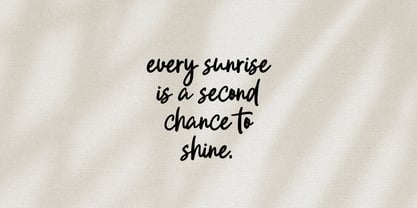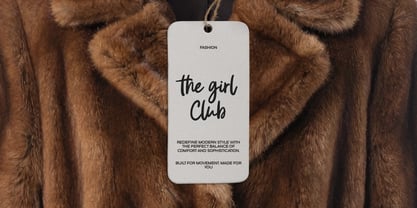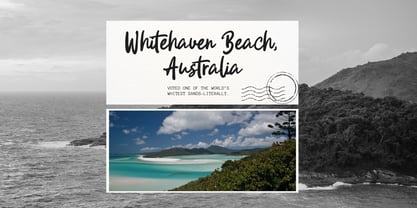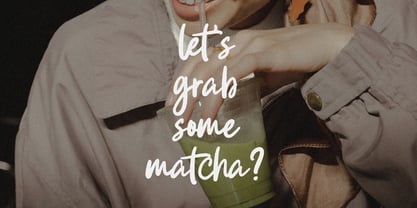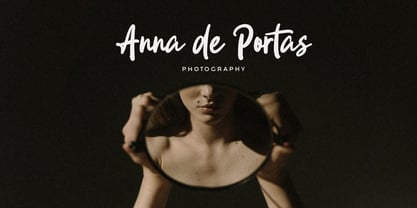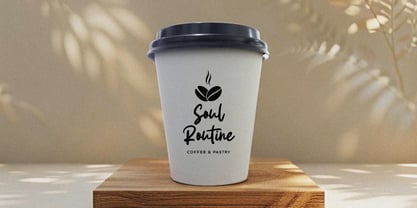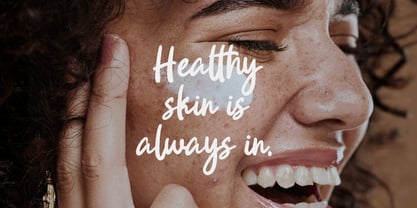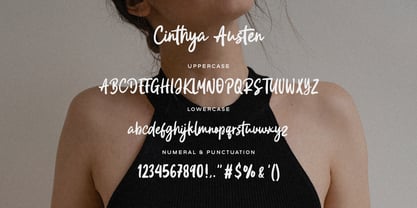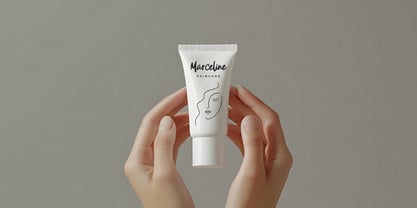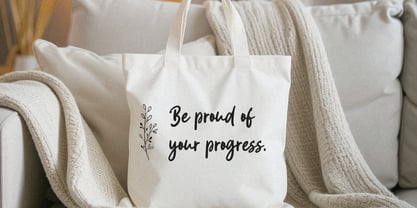
Cinthya Austen
The Cinthya Austen Font Family was designed by Muhammad Fikry and published by Fikryal. Cinthya Austen contains 1 styles. More about this family
Cinthya Austen is a casual handwritten script font that brings a natural, warm, and personal touch to your designs. Inspired by authentic handwriting, this font delivers smooth strokes, organic curves, and a friendly character—perfect for modern branding and creative projects that need a human feel. Designed to look effortless yet stylish, Cinthya Austen works beautifully for logos, quotes, social media content, packaging, invitations, fashion branding, and lifestyle designs. Its handwritten script style adds charm and authenticity, making every design feel more personal and expressive. This font is ideal for designers, small businesses, and creatives who want a handwritten look that feels natural, casual, and easy to read while still maintaining elegance and versatility. Features Casual handwritten script style Natural and smooth handwritten strokes Clean and readable letterforms Uppercase & lowercase characters Numerals and basic punctuation Works great for both digital and print designs Perfect For Logo design Branding & personal identity Social media posts & content Quotes & typography design Invitations & greeting cards Packaging & product labels Fashion, beauty, and lifestyle branding If you have any questions please don’t hesitate to contact me. follow my Instagram: fkryall Thank you 🙂